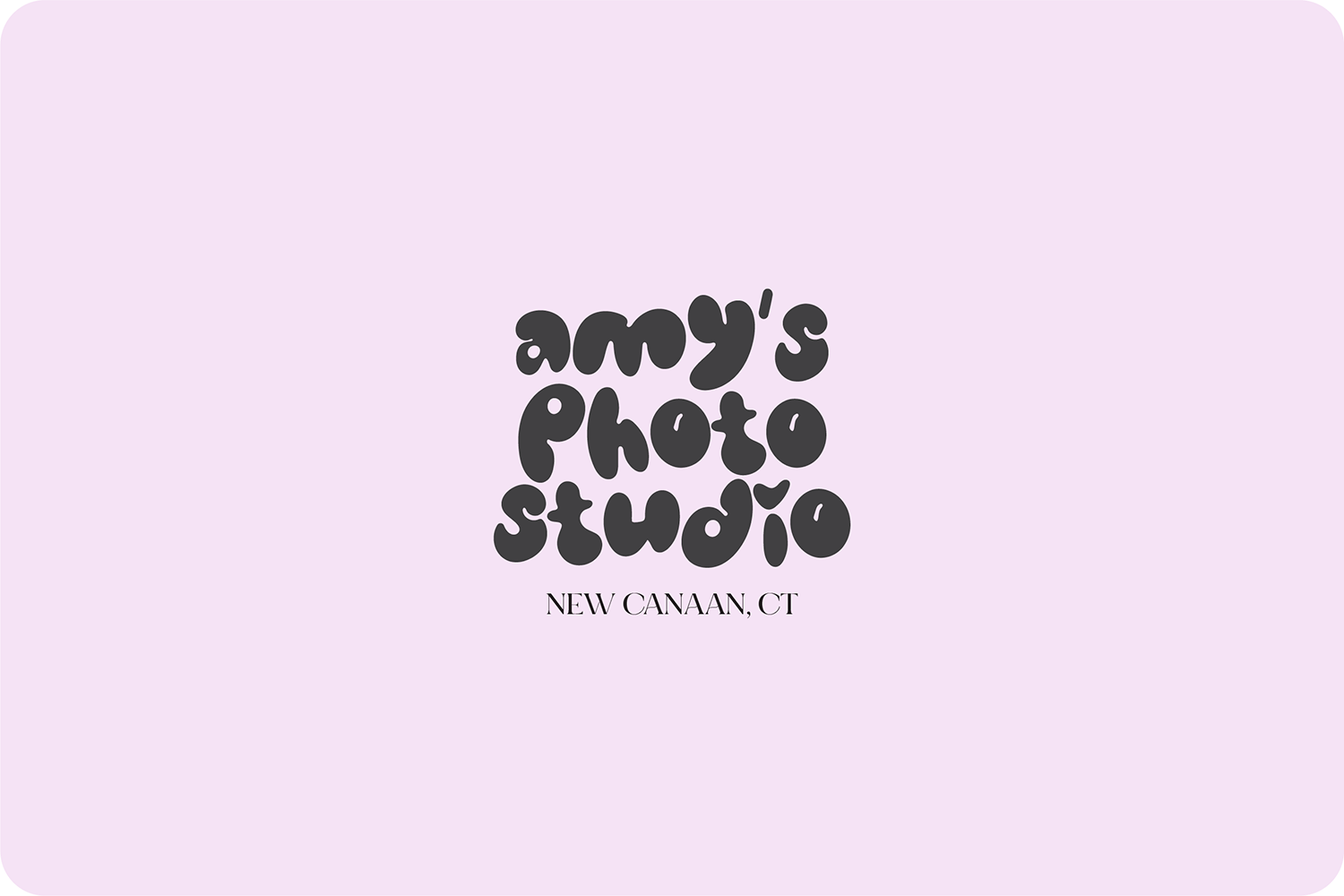
"Happy Club" a cute and quirky bubble font. Includes an outline version!
This font is a unique display font that is perfect for social media or crafty projects. Use if for branding, crafts for decor, invitations, and more!